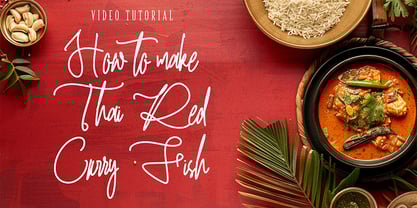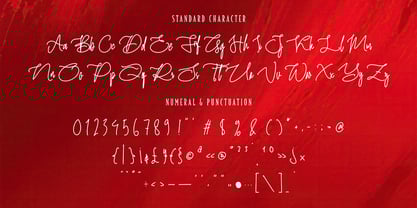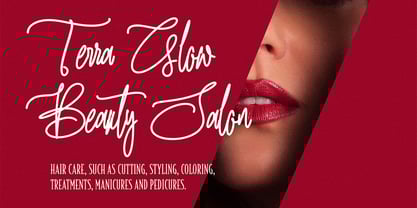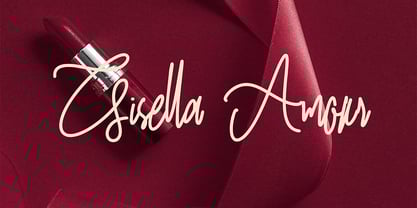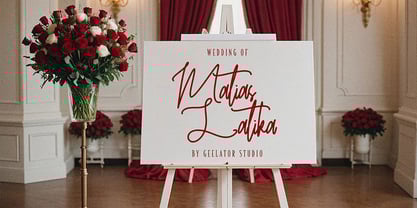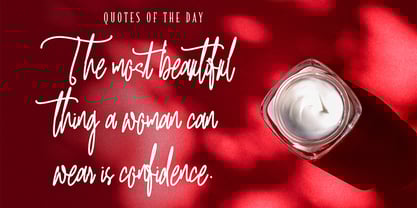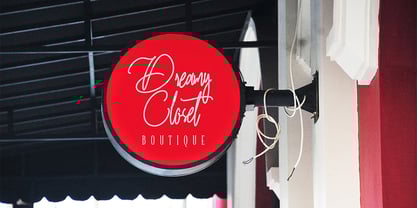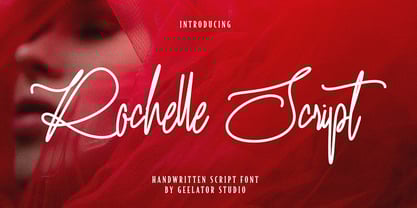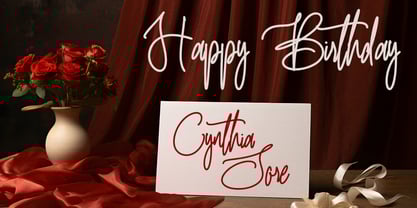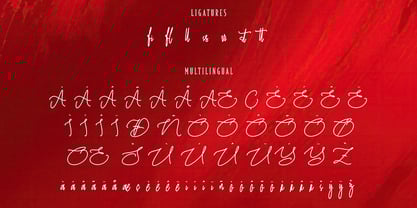
Rochelle Script
von Geelator Studio
Die Schriftfamilie Rochelle Script wurde von Gilang Tito Dharmawan entworfen und von Geelator Studio veröffentlicht. Rochelle Script enthält 1 Stile.
Bring a touch of refined beauty to your work with Rochelle Script, a font that embodies delicate elegance. Its graceful, flowing curves are perfect for crafting a sophisticated and romantic feel. Use this beautiful monoline script to elevate wedding invitations, create charming greeting cards, or add a touch of timeless class to your branding projects.
Designer: Gilang Tito Dharmawan
Herausgeber: Geelator Studio
Foundry: Geelator Studio